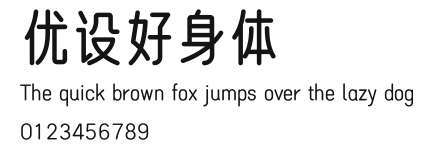
优设好身体 Preview
• Font Name: 优设好身体
• Font ID: YOUSHEhaoshenti Regular v1.00
• Full Font Name: YOUSHEhaoshenti
• PostScript Name: YOUSHEhaoshenti
• Character Count: 7182
• Designer: YouShe Design Team
About 优设好身体.ttf
优设好身体.ttf is a modern, elegant sans-serif font designed for ultimate readability and visual harmony. Perfect for branding, headlines, web design, and print materials.